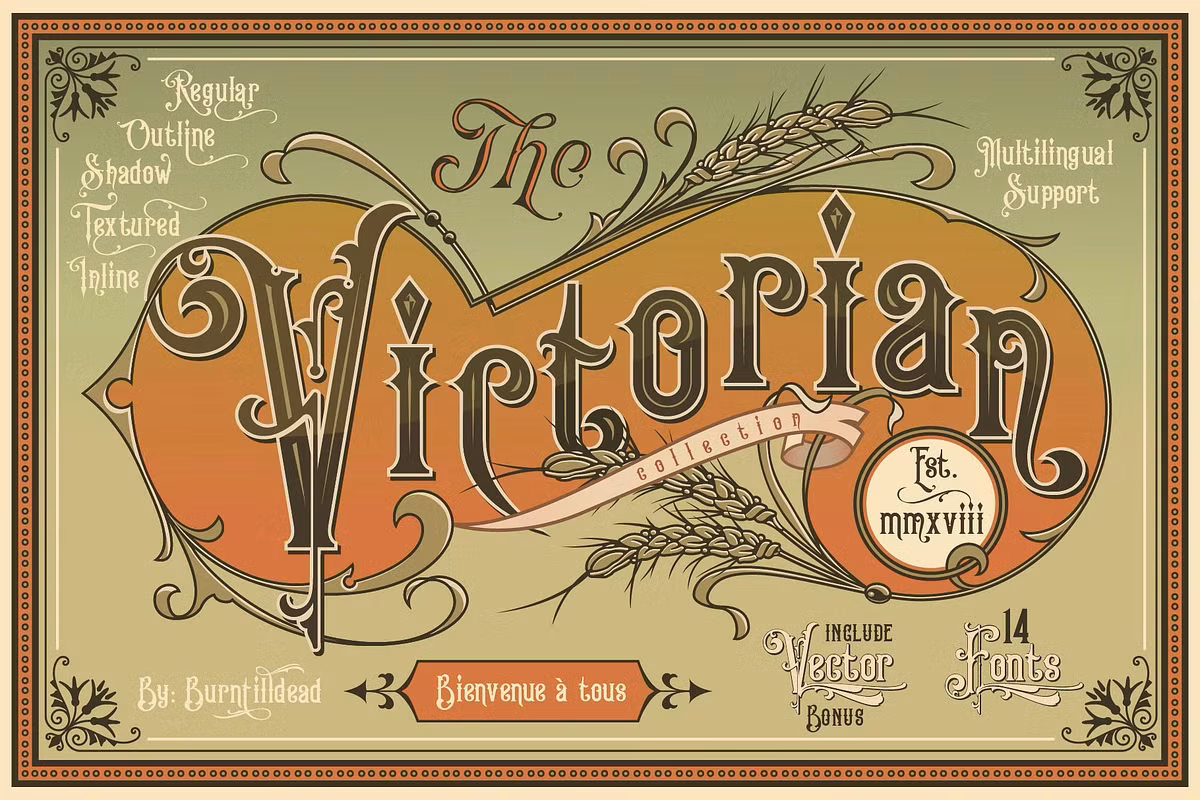
Victorian Fonts Collection Free Download is a stunning compilation of ornate, vintage-inspired typefaces that capture the elegance and drama of the Victorian era. Ideal for antique branding, book covers, posters, and themed event materials, this collection brings a historical flair to modern design.
With decorative details, bold serifs, and classic letterforms, Victorian Fonts Collection Free Download offers endless creative possibilities. Whether you're crafting steampunk visuals or sophisticated labels, these fonts instantly transport your audience to a bygone time. This collection is a treasure trove for designers who want to infuse their work with vintage charm and ornate typography. Try them out now and experience their nostalgic beauty before committing to a commercial license.